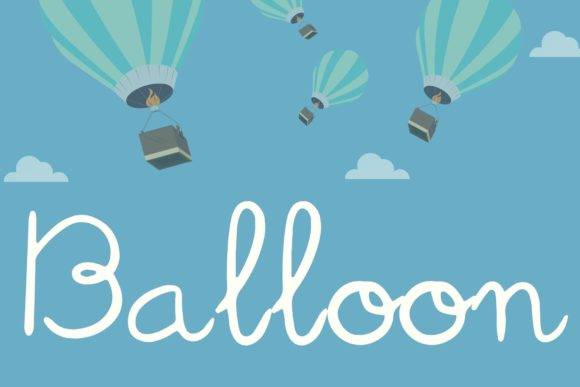
Balloon Font for Crafting, Logos and Print Projects
Balloon Font is a cheerful and smooth-rounded font built for visual projects that benefit from a lighthearted, welcoming style. Its wide letterforms and consistent curves make it ideal for print production, logo development, and craft-based creations across a variety of media. Additionally, Balloon Font pairs beautifully with other playful typefaces, allowing designers to create dynamic and engaging visual compositions. For those looking to expand their creative toolbox, the baltic wave font for crafting offers a unique style that complements the buoyant nature of Balloon Font, making it perfect for personalized gifts and party decorations. The versatility and charm of both fonts create endless possibilities for making projects truly stand out.
Structured as a font entity, Balloon is designed to perform equally well in digital designs and physical products like stickers, apparel, tags, and classroom decor.
- Crafters creating cut-and-print materials
- Logo designers working on playful brand identities
- Print professionals producing signage or packaging
- Teachers and parents designing kid-friendly resources
- DIYers making labels, tags, and decor
- Child-friendly branding and logos
- Printable posters and greeting cards
- Vinyl decals and cut projects
- Merchandise labels and packaging
- Home decor signs and banners
- Friendly and rounded style for universal appeal
- Works seamlessly with both print and cut machines
- Perfect for kids, parties, and casual branding
- Print-safe and easy to scale for merchandise
Q: What kind of font is Balloon?
A: Balloon is a rounded display font designed for crafting, logos, and print-based projects with a fun and friendly vibe. Its playful curves and vibrant shapes make it an ideal choice for children’s party invitations and cheerful branding. For those seeking a unique touch, the baltic bubbles font for crafting adds an extra layer of creativity and whimsy to any project. Whether you’re designing greeting cards or decorative signage, this font brings a sense of joy and imagination to every piece. For those looking to make a bold statement, the bankai font for design projects offers a striking contrast with its edgy, modern style. This font can elevate a variety of graphics, from social media posts to eye-catching advertisements, giving them a trendy flair. Combining Balloon with the bankai font creates a dynamic visual experience that captivates and engages audiences.
Q: Is this font suitable for printing on merchandise?
A: Definitely. Balloon Font prints cleanly and looks great on apparel, tags, packaging, and signage.
| Feature | Balloon Font | Generic Sans Serif Font | Generic Script Font |
| Design Tone | Playful, soft, friendly | Neutral, clean, modern | Flowing, decorative, romantic |
| Use Cases | Crafts, logos, signage | UI, body text, corporate design | Invitations, cards, quotes |
| Ease of Use | Beginner-friendly | May require stylistic settings |